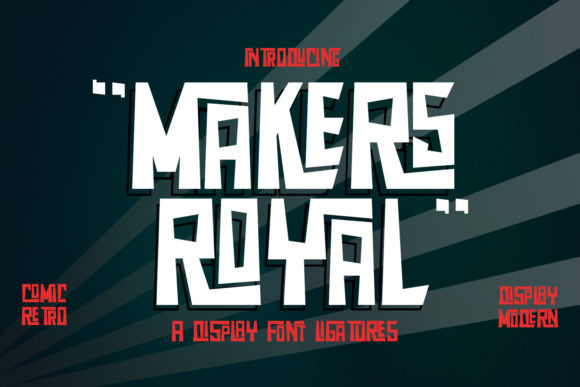
Dive into the world of typographic wonders with Makers Royal Font, the ultimate display font that ignites creativity and transforms your designs into captivating masterpieces. Unleash your artistic flair as you explore the boundless possibilities of this retro and graffiti-inspired gem. With its unique and classic leagues, Makers Royal Font elevates every project, adding a touch of nostalgia and urban edge that sets your work apart.
Embrace the versatility of Makers Royal Font, a font that effortlessly adapts to a myriad of design endeavors. Whether you're crafting eye-catching logos, creating stunning posters, or designing captivating social media graphics, this font rises to the occasion, delivering exceptional results every time. Its ability to seamlessly blend the charm of the past with the energy of the present makes it the perfect choice for designers seeking a font that resonates with audiences of all ages.
Makers Royal Font is more than just a collection of letters and symbols; it's an artistic journey that invites you to explore the depths of creativity. Its PUA encoding opens up a world of glyphs and swashes, empowering you to add intricate details and flourishes that elevate your designs to new heights. Unleash your imagination and let Makers Royal Font guide you towards typographic excellence.